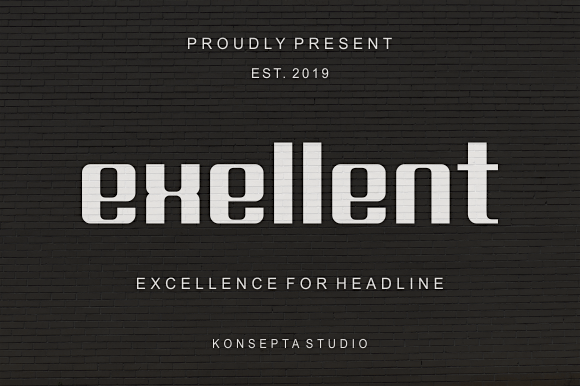
Hi, there! Proudly present our next font experimental project, called Exellent. Designed spesifically for excellence headlines. All lowercase. You can use it for personal use only. But, if you wanna use it for commercial purpose, feel free to contact me at konseptastudio@gmail.com. Making fonts is very time-consuming, if you find the benefits of my work, consider to give a donation. Believe me, your donation will boost my creativity to create beautiful fonts, more and more in the future. Paypal account for donation : https://paypal.me/konseptastudio/ Purchase at our store : https://www.creativefabrica.com/product/exellent/ref/235542/ Thanks for the download and donation. Let's have font together! |